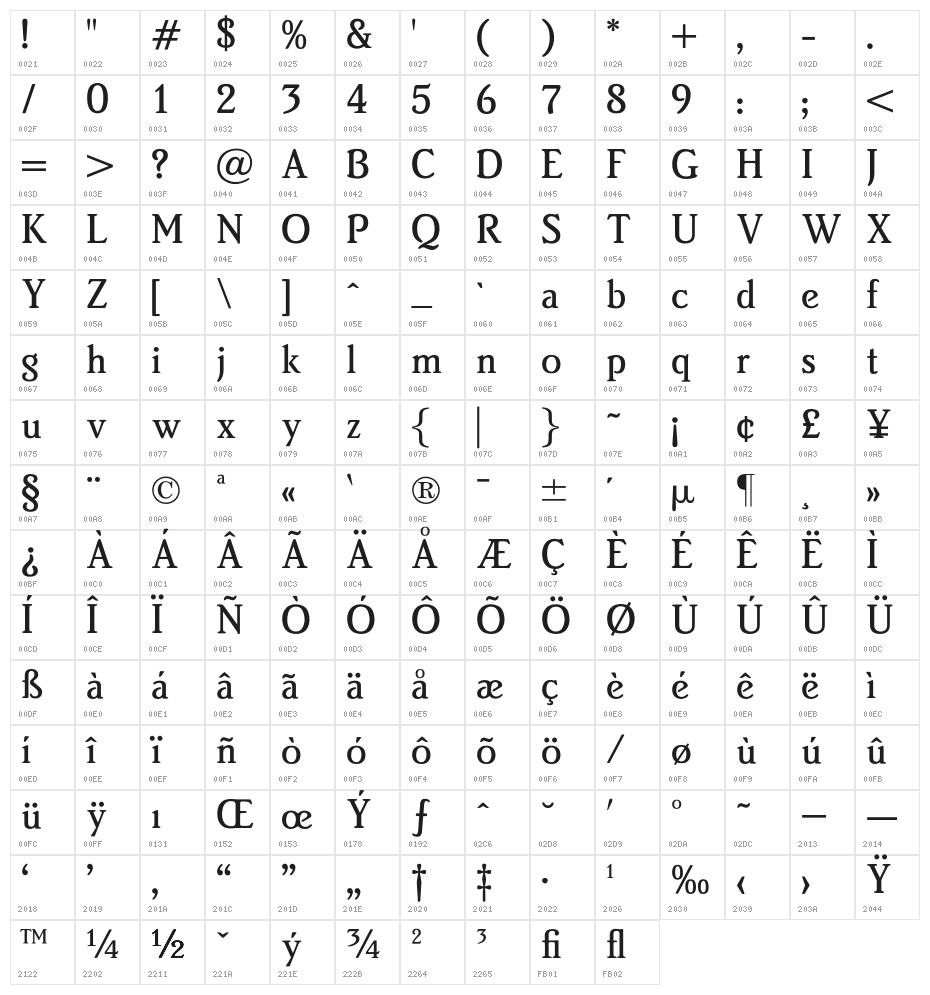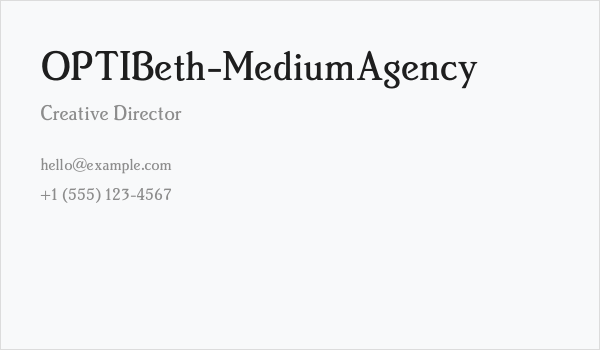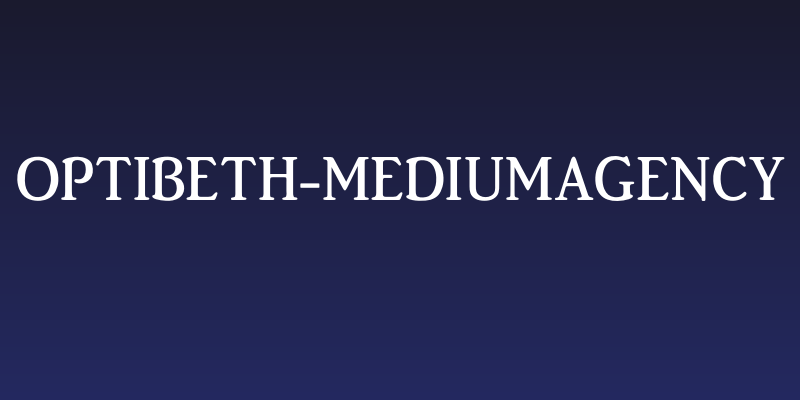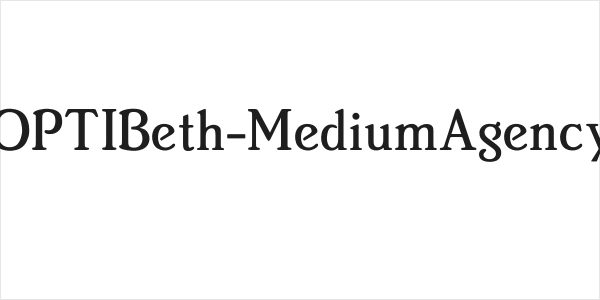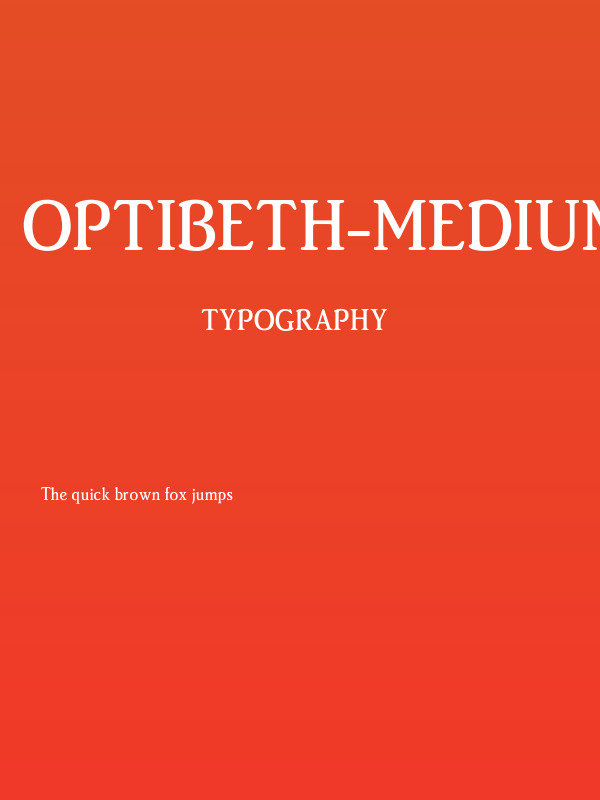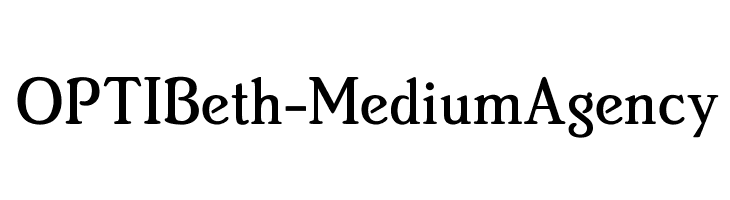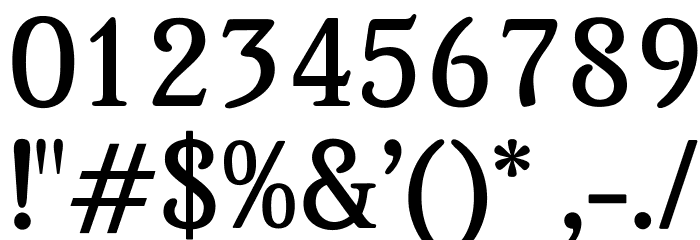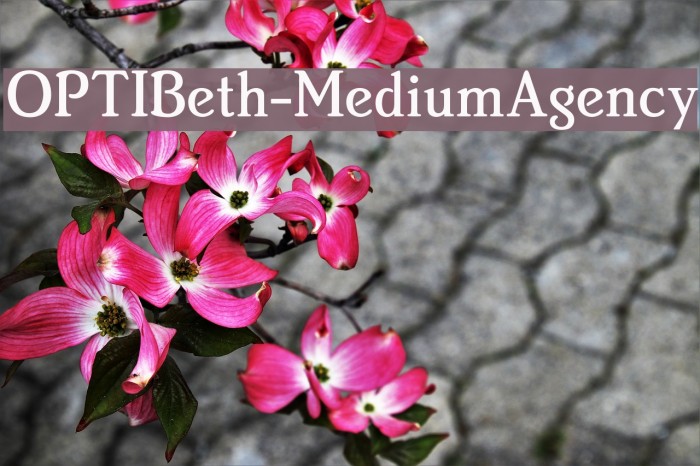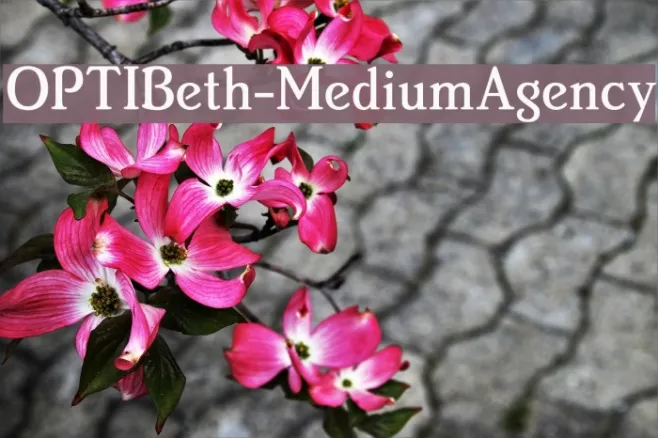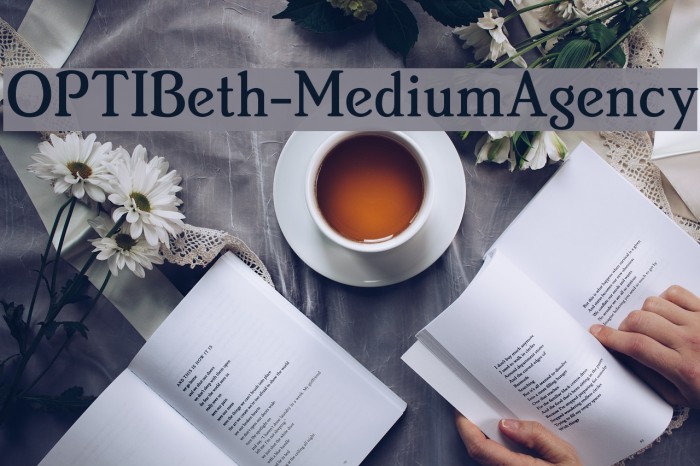
OPTIBeth-MediumAgency Font
OPTIBeth-MediumAgency Description
This font features a classic serif style with elegant and refined strokes. The characters exhibit a balanced proportion, with slightly flared serifs that add a touch of sophistication. The uppercase letters are bold and commanding, while the lowercase letters maintain a graceful flow. The numerals are clear and distinct, making them easily readable. Special characters are well-integrated, maintaining the overall aesthetic of the font. The design is suitable for both traditional and modern applications, offering versatility in various contexts.
| Proposed Projects | Ideal for editorial design, book covers, formal invitations, and branding projects that require a touch of elegance. |